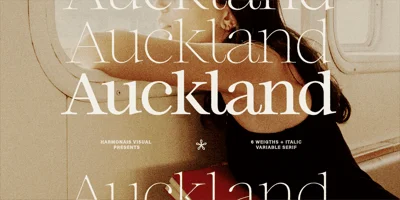
HV Auckland Font
HV Auckland Font is perfect for Pacific region branding, New Zealand tourism campaigns, oceanic lifestyle marketing, harbor city graphics, maritime industry logos, coastal business identities, sailing event promotions, island resort communications, Pacific cultural projects, and modern urban planning presentations. Its metropolitan character makes it ideal for projects requiring cosmopolitan sophistication and Pacific charm.
What makes HV Auckland Font exciting is its sophisticated capture of Pacific metropolitan elegance that perfectly balances urban modernity with oceanic tranquility. The font features clean, confident letterforms with subtle nautical influences that evoke the dynamic energy of harbor cities while maintaining contemporary professionalism. Its cosmopolitan character transforms text into expressions of Pacific sophistication that resonate with international audiences seeking quality and reliability.
The HV Auckland Font family includes Regular, Bold, Light, Medium, Condensed, Extended, and Harbor variations. Each style preserves the font's metropolitan essence while offering different weights and treatments for creating versatile Pacific-inspired graphics. The comprehensive character set includes maritime symbols, Pacific ornaments, oceanic decorations, and cosmopolitan glyphs essential for authentic regional and international typography projects.
International businesses and Pacific brands consistently choose HV Auckland Font for projects demanding sophisticated regional typography solutions. The font's metropolitan character establishes immediate credibility while ensuring clear communication across global marketing channels. Its versatility makes it suitable for both local Pacific applications and international campaigns that need to project Pacific sophistication and reliability.
Whether you're developing Pacific brand identities, creating international marketing materials, or designing cosmopolitan business communications, HV Auckland Font provides the perfect combination of regional authenticity and global appeal. The font's expertly crafted letterforms ensure consistent quality across various media while projecting the sophistication and reliability associated with Pacific metropolitan excellence.
The international heritage of HV Auckland Font makes it exceptional for establishing credible presence in competitive global markets while maintaining authentic Pacific connections. Its metropolitan precision and oceanic appeal work seamlessly across traditional business documentation and modern digital platforms. The font maintains its sophisticated character across various international applications and cross-cultural communications.
Navigate global success with HV Auckland Font and discover how Pacific metropolitan typography can enhance your international projects with genuine regional sophistication and cosmopolitan appeal. This remarkable typeface combines Pacific heritage with global functionality, making it indispensable for businesses seeking to project quality and reliability in international markets.